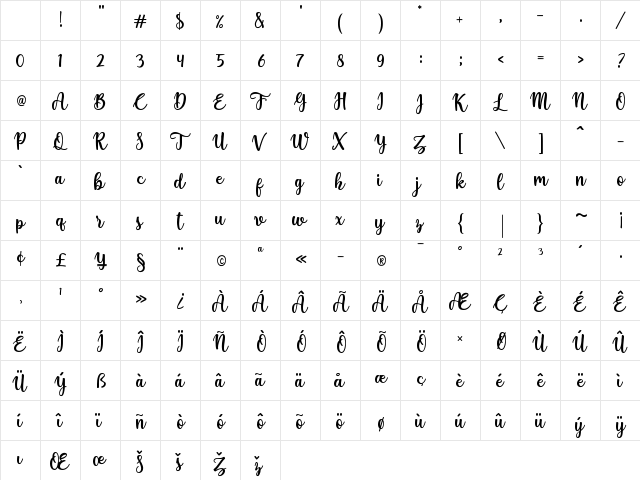
Complete yellosun Regular glyph index. Displaying only characters natively supported by yellosun Regular font.
yellosun is a composed and adaptable typeface that performs quietly and consistently across a wide range of design contexts.